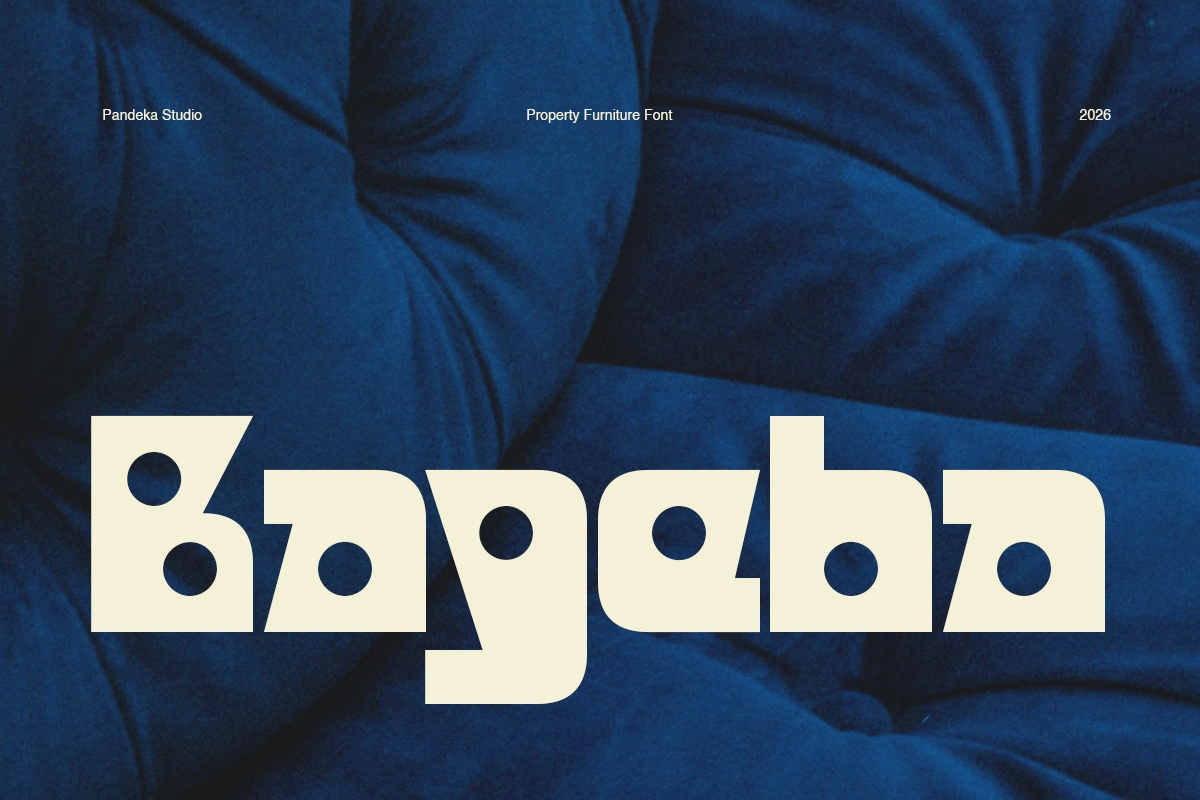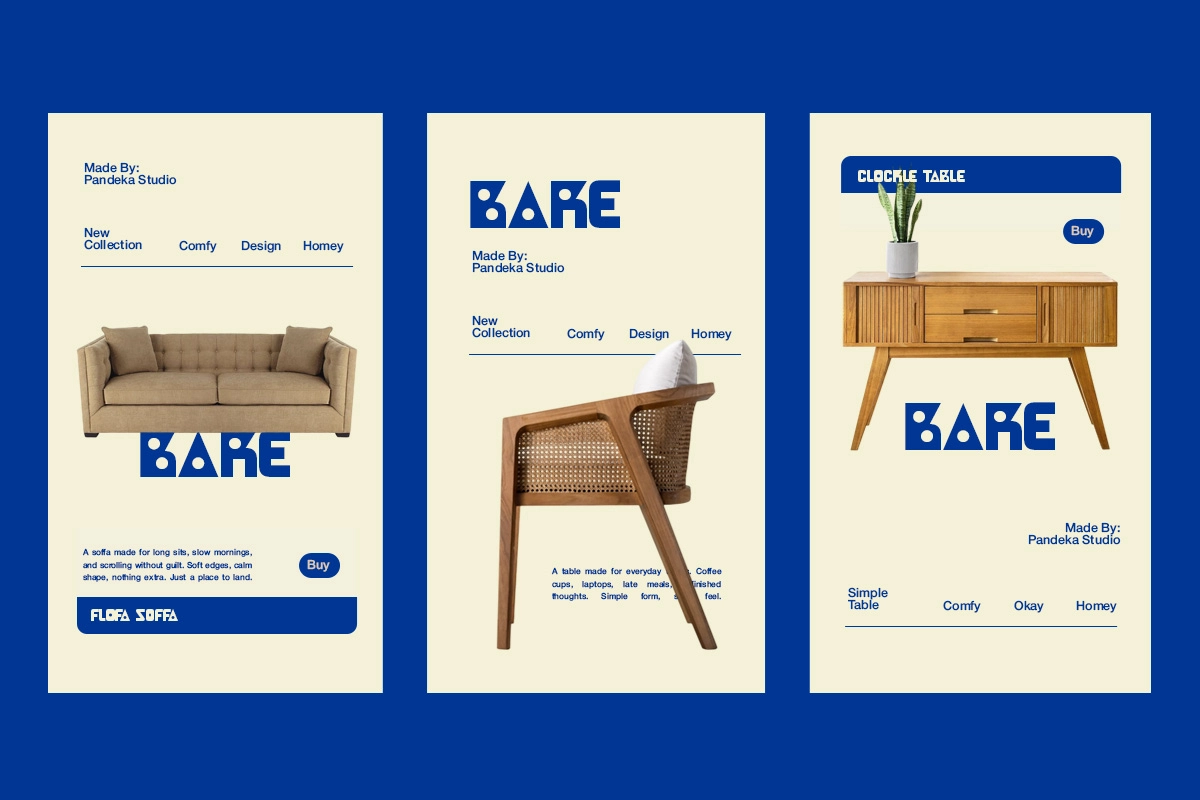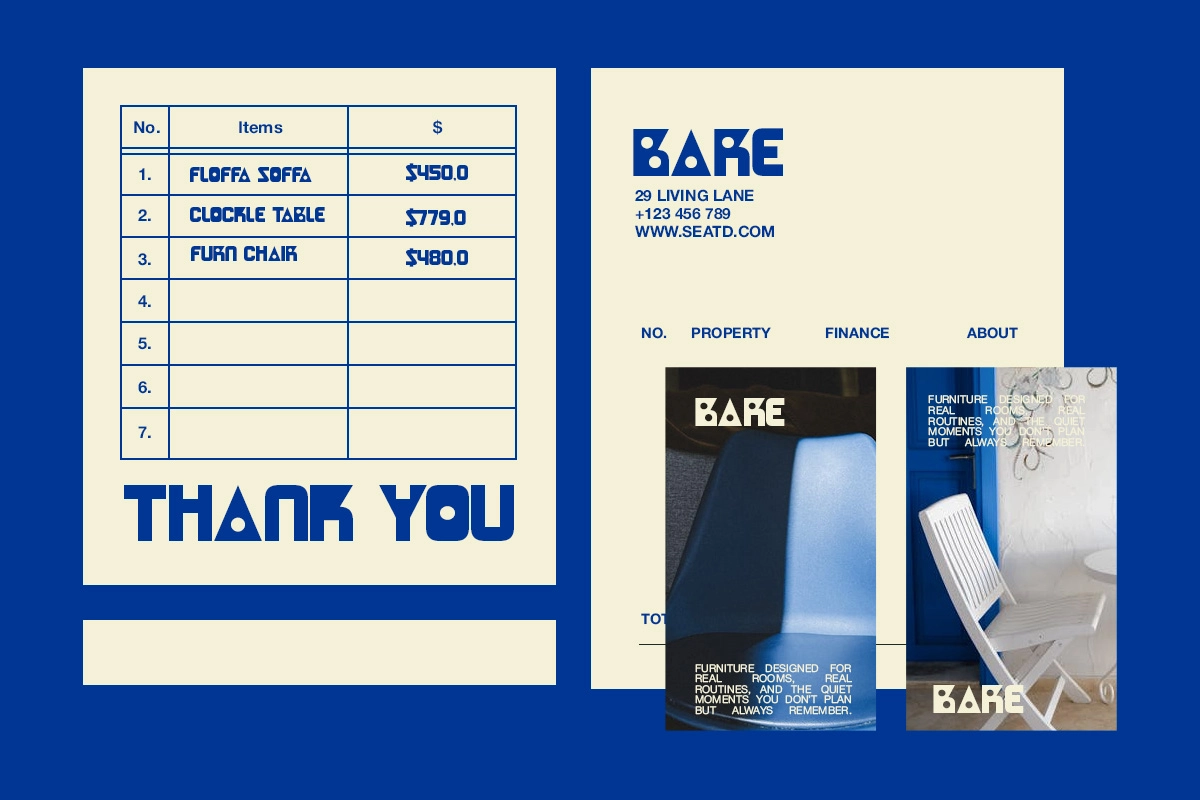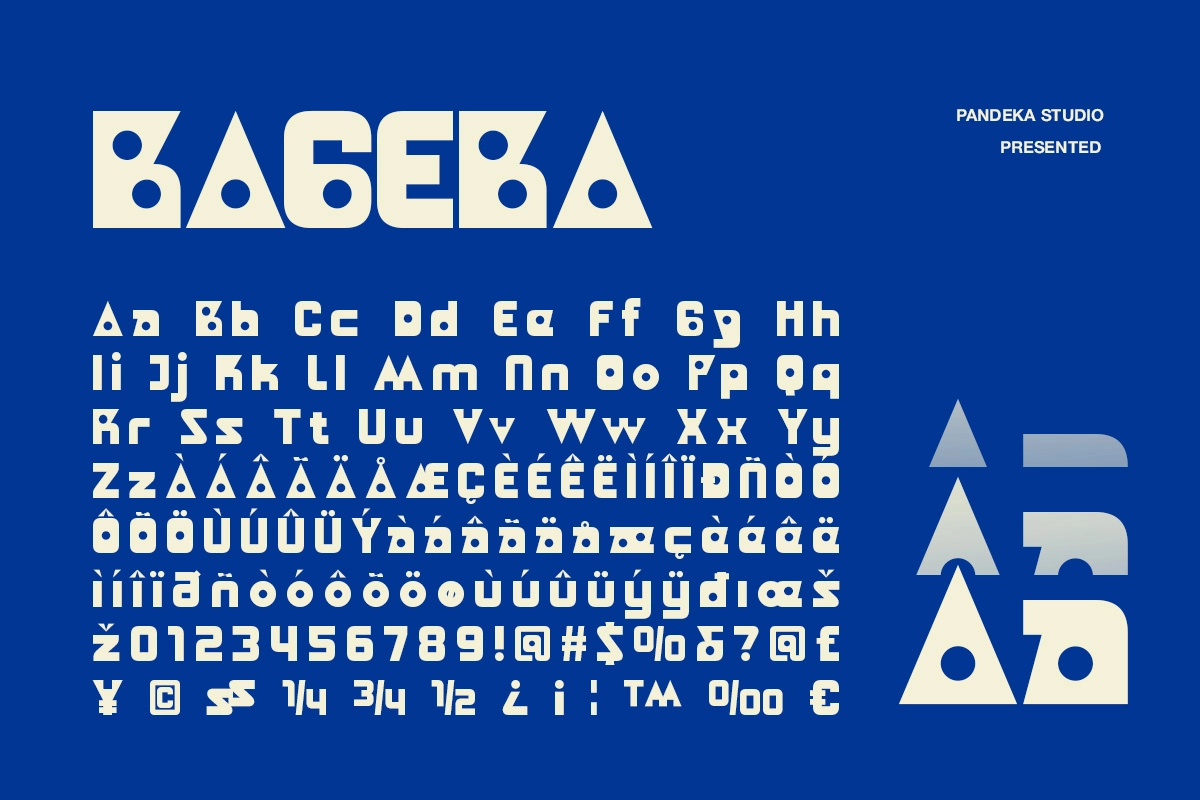
Bageba - Bold Geometric Display Font
Bageba is a bold geometric display font built on a square block footprint, with heavy stroke weight and circular punch-through counters that cut clean holes through "B", "a", "b", "g", and "d" — a construction detail closer to industrial stencil work than conventional type. The uppercase runs blocky and angular; the lowercase echoes the same heavy mass with rounded tops that reference 1970s furniture showroom branding and mid-century interior graphics.
The weight dominates at large sizes and makes it a natural fit for real estate identity, furniture catalog covers, interior design studio branding, property developer signage, packaging headlines, and poster work that wants structural confidence without going fully slab serif.